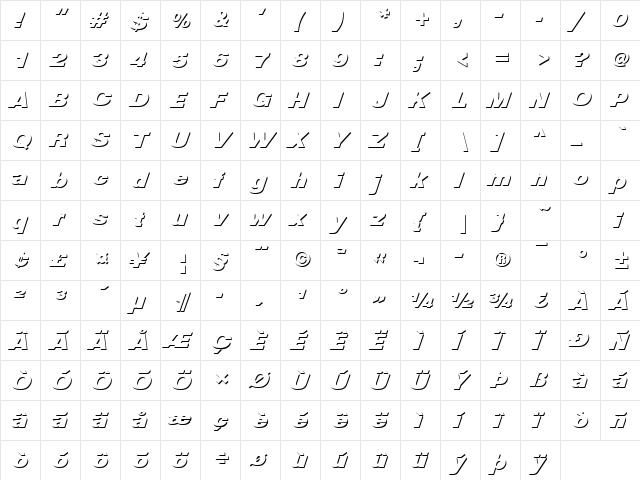
Nimbus Sans Becker DiaOnlShaD Regular
Design Context for Nimbus Sans Becker DiaOnlShaD Typeface
Nimbus Sans Becker DiaOnlShaD is a composed and adaptable typeface that performs quietly and consistently across a wide range of design contexts.